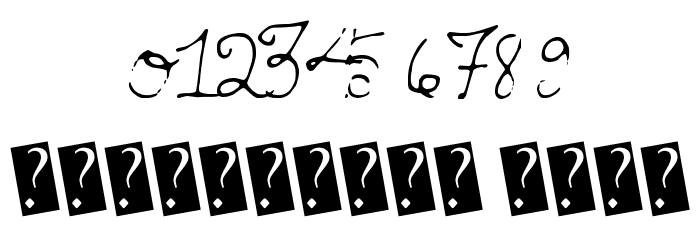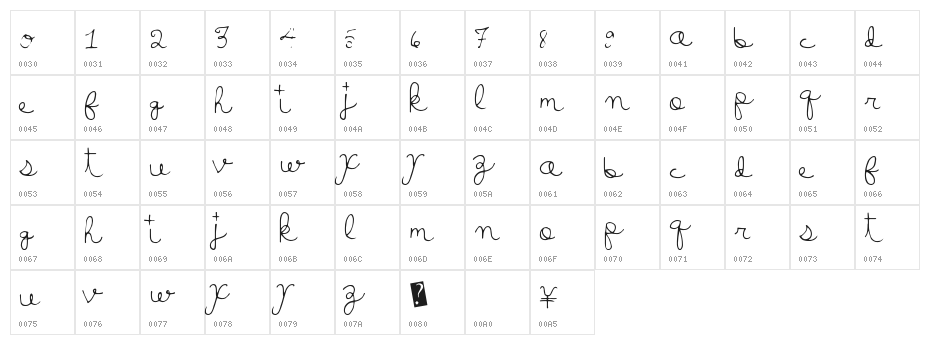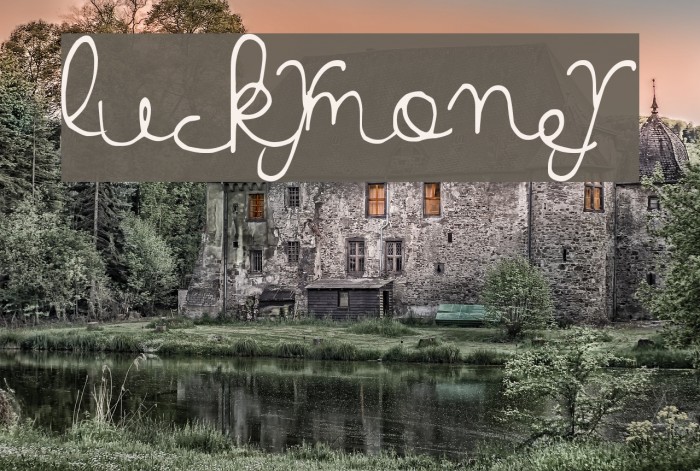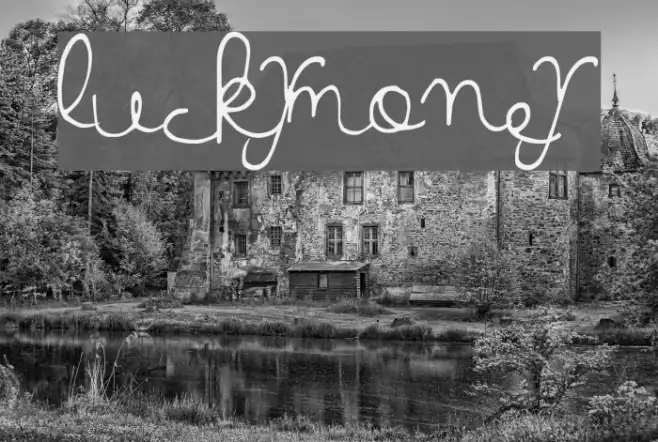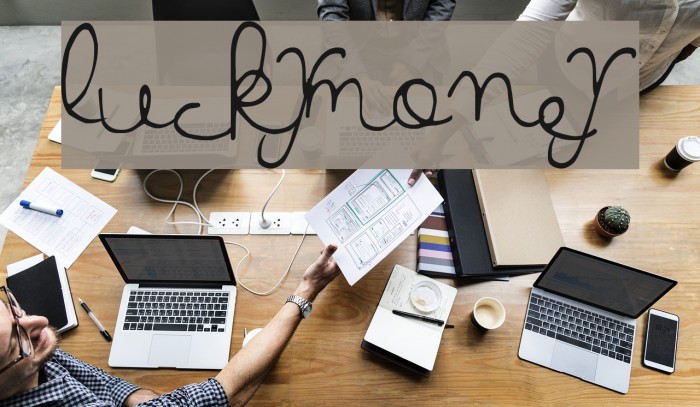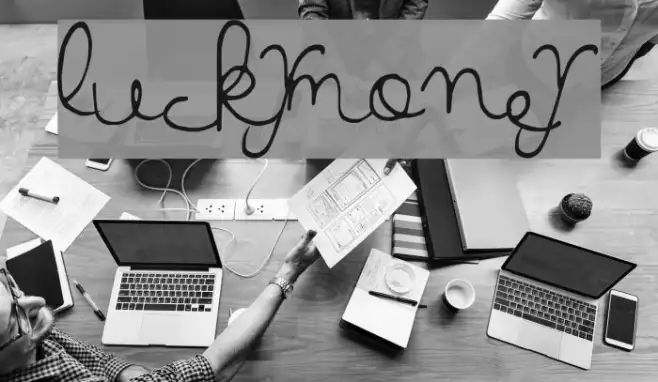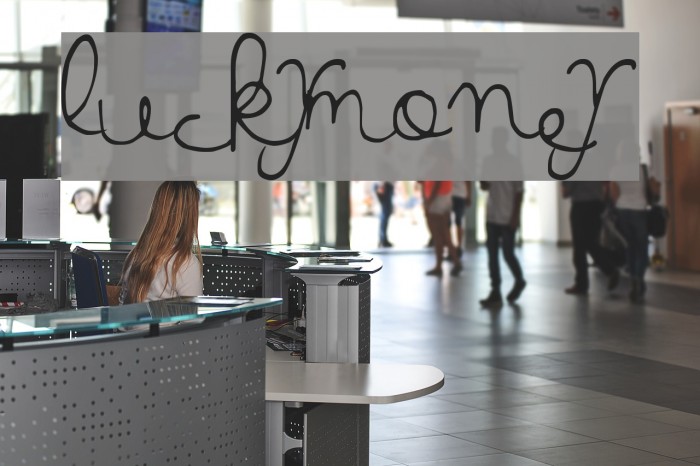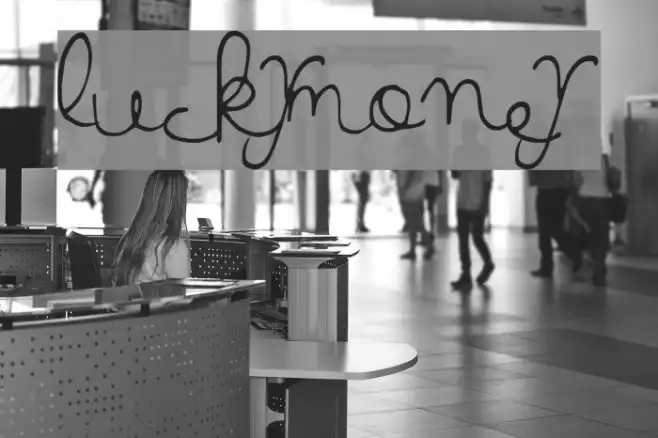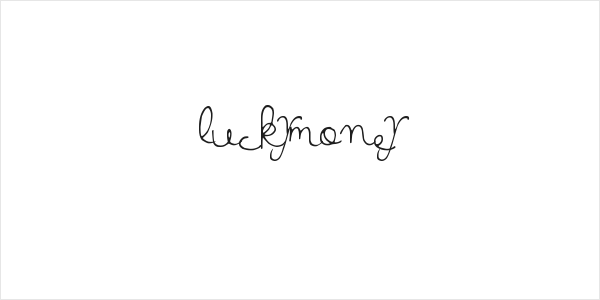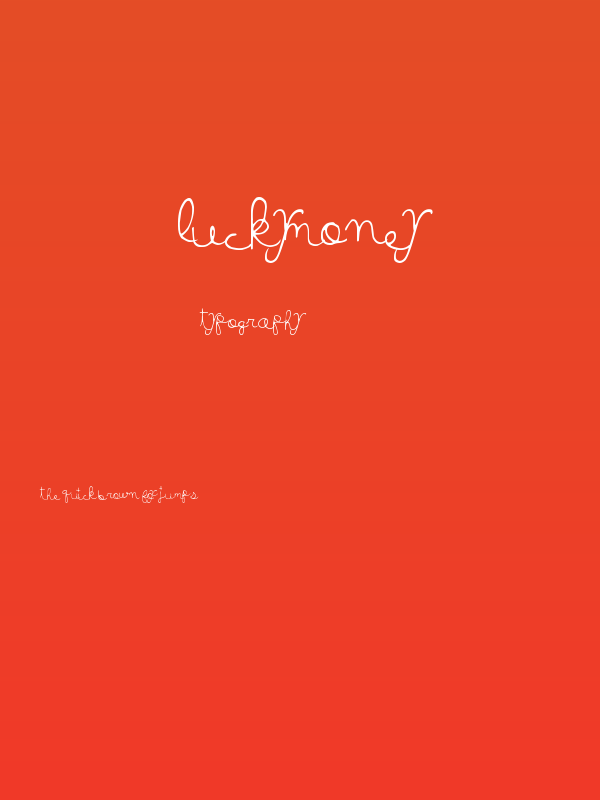
LuckyMoney Font
LuckyMoney Description
This font features a playful and whimsical handwritten style, characterized by its flowing, cursive letters. The strokes are smooth and continuous, giving it an organic and natural feel. The letters are slightly slanted, adding to the casual and informal appearance. The numbers and special characters maintain the same playful style, with unique and creative forms. The overall look is light-hearted and artistic, making it suitable for projects that require a personal touch.
| Proposed Projects | Ideal for greeting cards, invitations, personal branding, and creative projects that require a personal, artistic touch. |